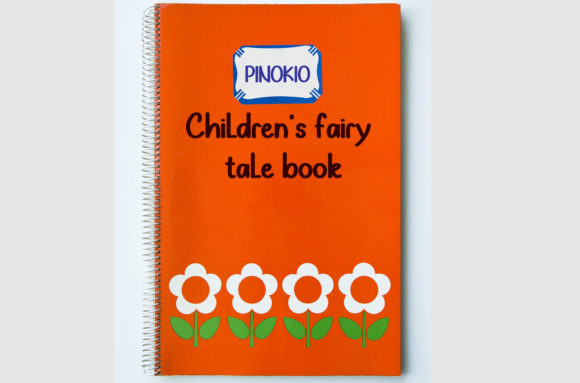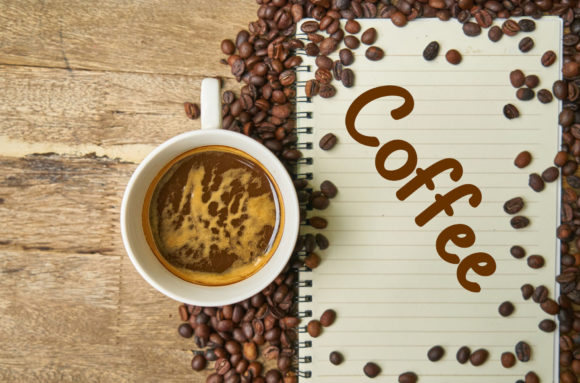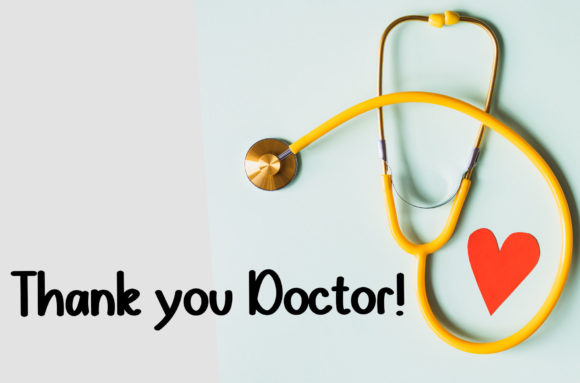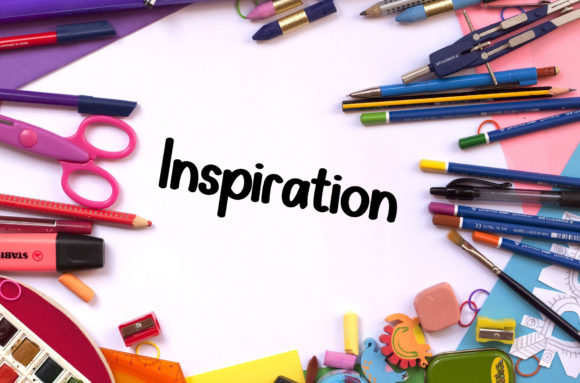
Introducing Cloud Bread Font: The Ultimate Choice for Fun and Playful Designs
Are you looking for a font that can add a touch of fun and playfulness to your designs? Look no further than Cloud Bread Font! This cool and friendly handwritten font is perfect for a wide range of design projects, from cartoons and children’s games to quotes, titles, brand names, book covers, posters, and more.
What Makes Cloud Bread Font So Special?
Cloud Bread Font is a unique and versatile font that can add a dash of personality to any design project. Its handwritten style gives it a friendly and approachable feel, making it perfect for designs that need to appeal to a younger audience or convey a sense of fun and playfulness.
One of the key features of Cloud Bread Font is its ability to evoke a sense of whimsy and imagination. Its soft, rounded edges and carefree vibe make it an ideal choice for designers who want to create designs that are both fun and engaging.
Uses for Cloud Bread Font
Cloud Bread Font is a versatile font that can be used for a wide range of design projects, including:
- Cartoon and animation projects: Cloud Bread Font is perfect for cartoons, animated videos, and other projects that require a fun and playful font.
- Children’s games and educational materials: The font’s friendly and approachable style makes it an excellent choice for children’s games, educational materials, and other projects that need to appeal to a younger audience.
- Quotes and titles: Cloud Bread Font is a great choice for quotes, titles, and headings that need to make a statement.
- Brand names and logos: The font’s unique and memorable style makes it an excellent choice for brand names and logos that need to stand out.
- Book covers and posters: Cloud Bread Font is perfect for book covers, posters, and other print materials that need to grab attention and convey a sense of fun and playfulness.
Why Choose Cloud Bread Font?
There are many reasons why Cloud Bread Font is an excellent choice for designers and crafters, including:
- Unique and memorable style: Cloud Bread Font has a unique and memorable style that can help your designs stand out.
- Versatility: The font can be used for a wide range of design projects, from cartoons and children’s games to quotes, titles, and more.
- Easy to read: Cloud Bread Font is easy to read, even at small sizes, making it perfect for designs that need to convey a message or tell a story.
- Fun and playful vibe: The font’s fun and playful vibe makes it an excellent choice for designs that need to appeal to a younger audience or convey a sense of whimsy and imagination.
Tips for Using Cloud Bread Font
Here are a few tips for using Cloud Bread Font in your designs:
- Use it sparingly: Cloud Bread Font is a bold and attention-grabbing font, so use it sparingly to avoid overwhelming your design.
- Pair it with other fonts: Cloud Bread Font pairs well with other fonts, so don’t be afraid to experiment with different combinations.
- Experiment with colors and textures: Cloud Bread Font looks great in a variety of colors and textures, so don’t be afraid to experiment and find the perfect combination for your design.
Cloud Bread Font is a cool and friendly handwritten font that is perfect for designers and crafters who want to add a touch of fun and playfulness to their designs. Its unique and memorable style, versatility, and ease of use make it an excellent choice for a wide range of design projects. Whether you’re working on a cartoon, children’s game, quote, title, brand name, book cover, poster, or just about any other creation that needs a touch of fun, Cloud Bread Font is a great choice.